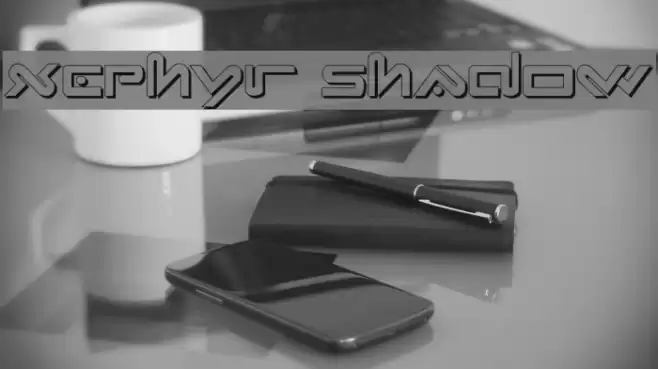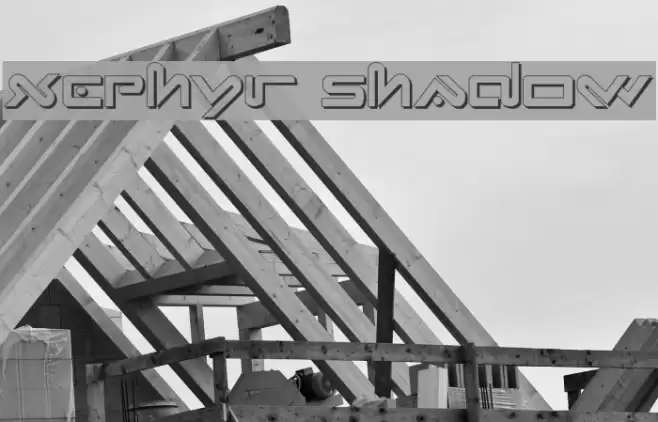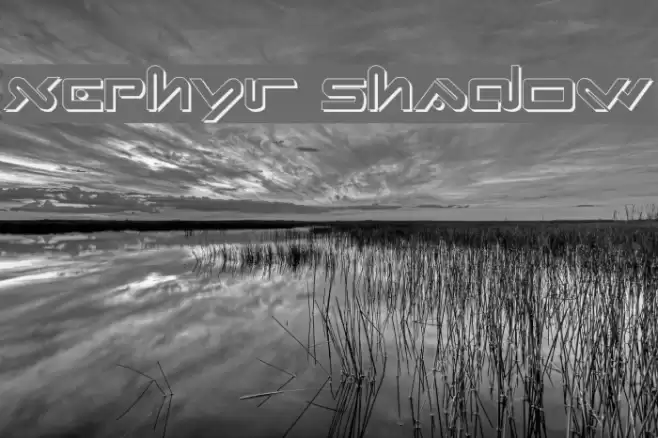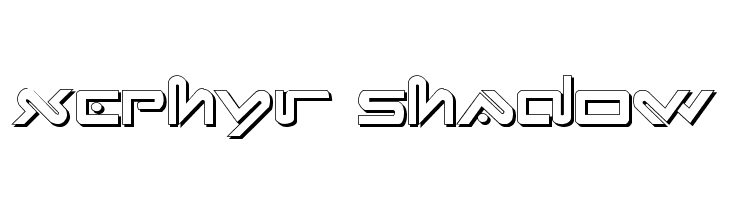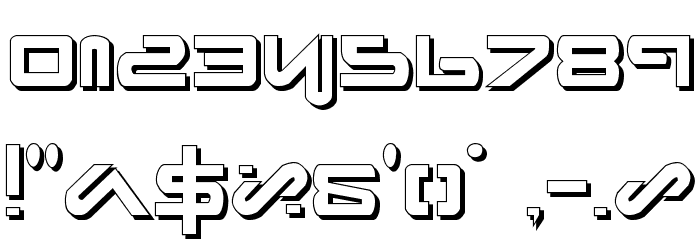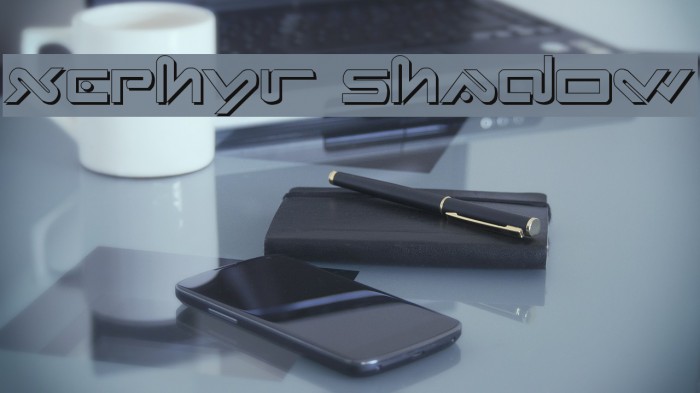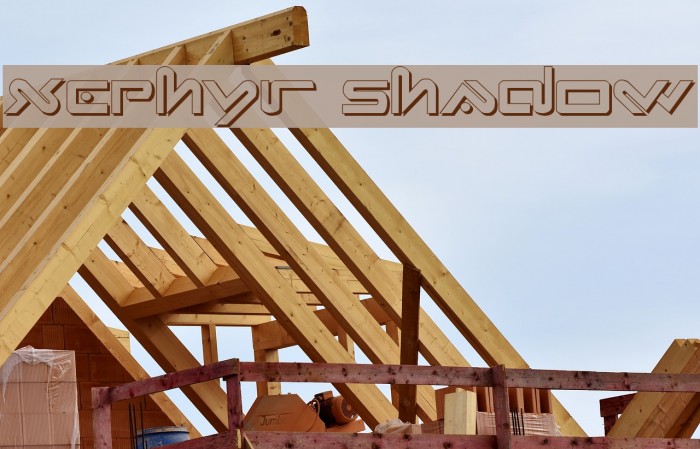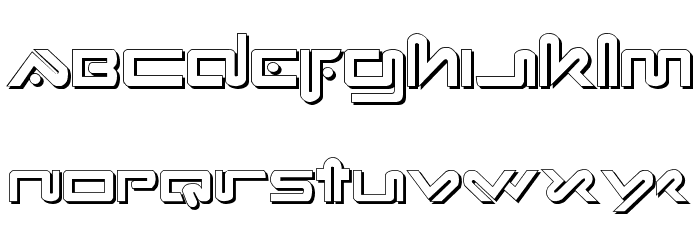
Xephyr Shadow Font
Xephyr Shadow Description
This font features a futuristic and geometric design with a distinct shadow effect that gives it a three-dimensional appearance. The characters are bold and angular, with sharp edges and a consistent stroke width that adds to its modern aesthetic. The uppercase and lowercase letters maintain a uniform style, while the numbers and special characters complement the overall design. This font is ideal for projects that require a contemporary and tech-inspired look, making it suitable for digital interfaces, gaming titles, and sci-fi themed designs.
A futuristic, geometric font with a shadow effect and bold, angular characters from Sci-fi fonts.
- Proposed Projects: Ideal for digital interfaces, gaming titles, sci-fi themed designs, and tech-inspired branding.